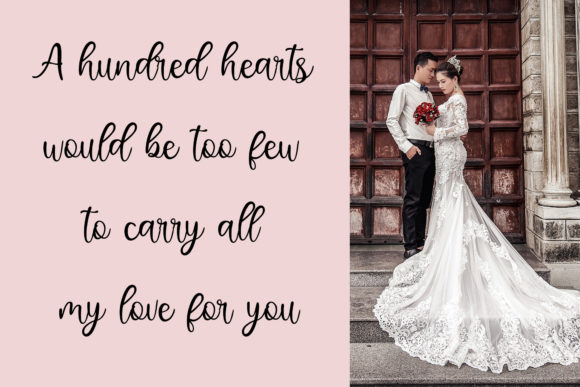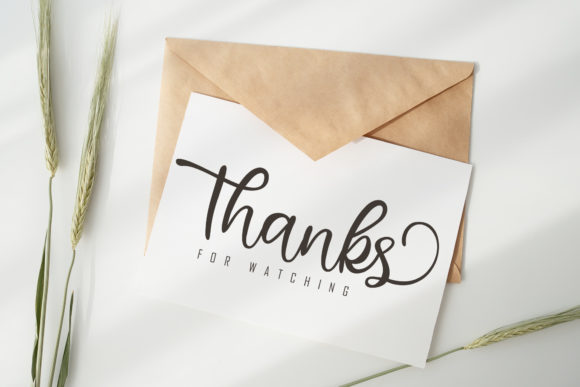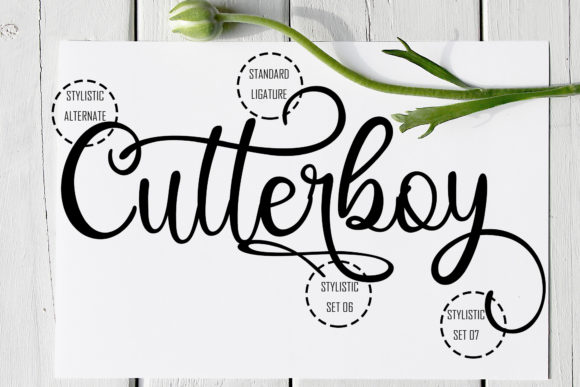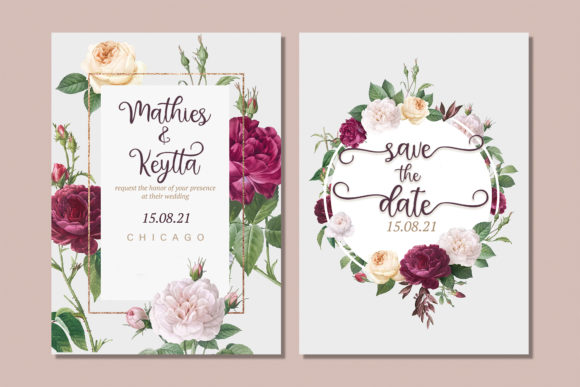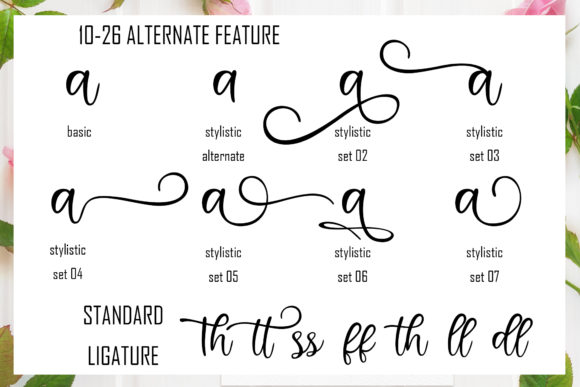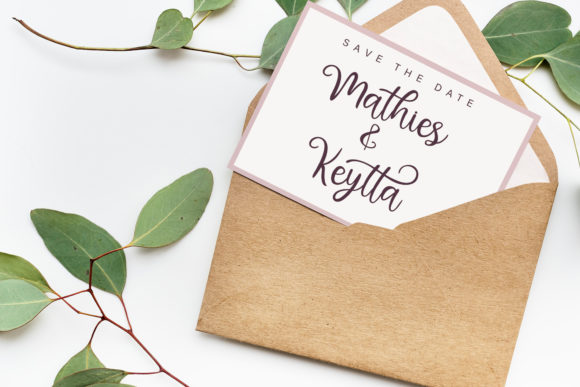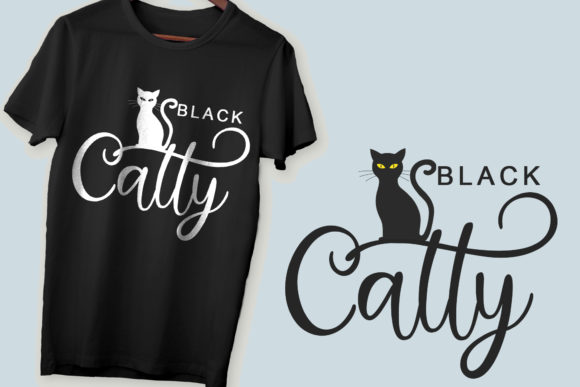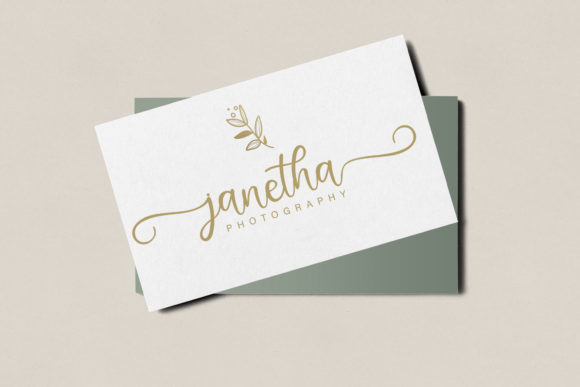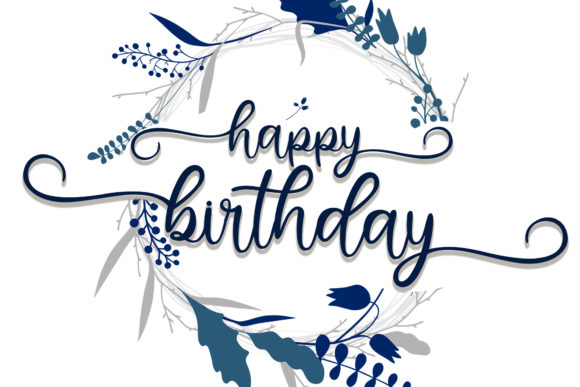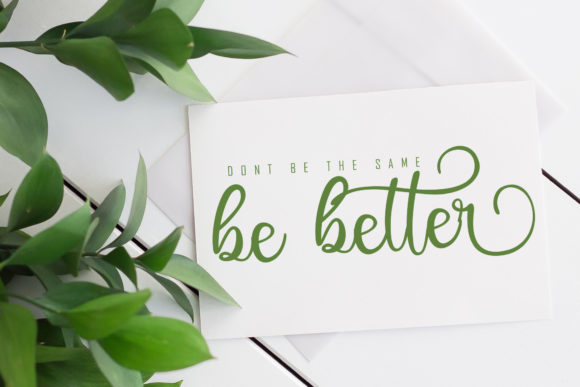
Hinatta Font
About Hinatta Font
Hinatta features gorgeous and incredibly rich swashes that will make any design project stand out. Get inspired by its unique style!